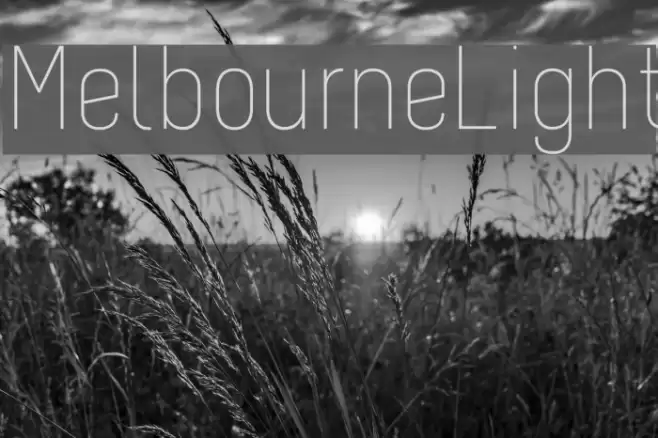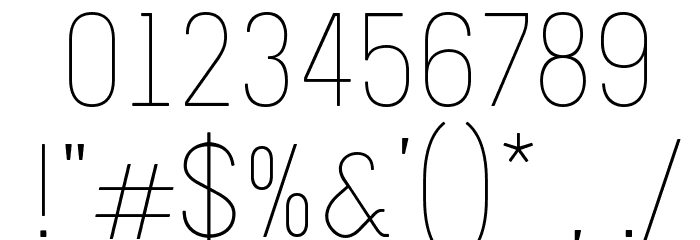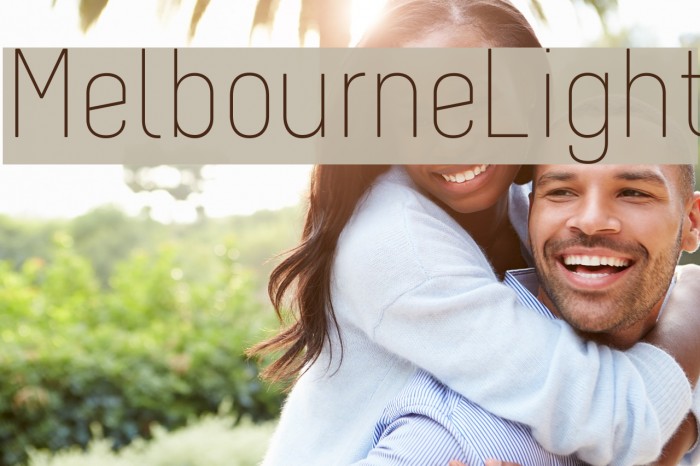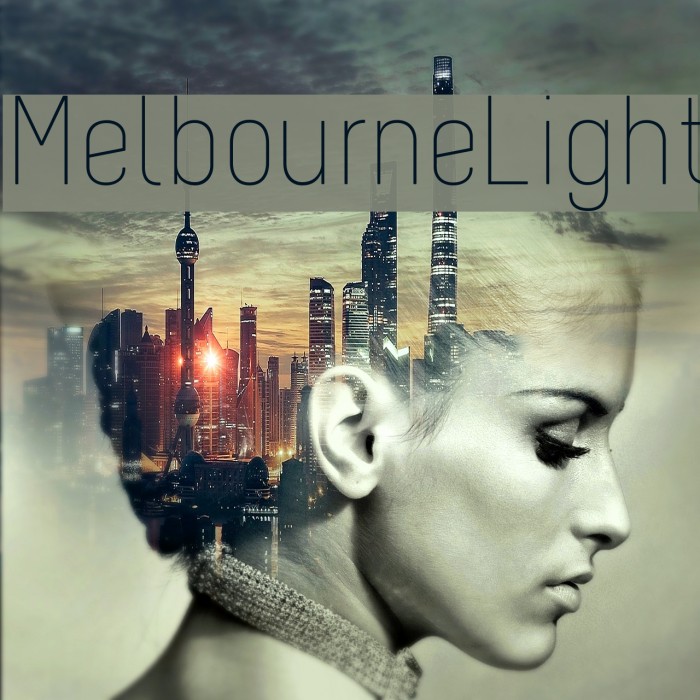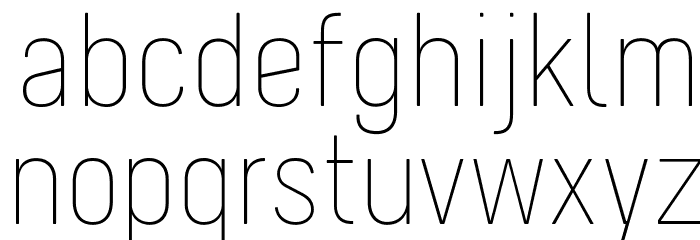
Melbourne-Light Font
Melbourne-Light Description
This font features a clean and modern sans-serif design with a light weight, offering a sleek and minimalistic appearance. The characters are tall and narrow, with consistent stroke widths that provide a uniform look. The uppercase and lowercase letters maintain a harmonious balance, while the numerals and special characters are designed to complement the overall aesthetic. The font's simplicity and elegance make it suitable for a wide range of applications where clarity and readability are essential.
A modern, light sans-serif font with a clean and minimalistic design from Uncategorized fonts.
- Proposed Projects: Ideal for branding, editorial design, web design, and corporate materials where a modern and clean look is desired.